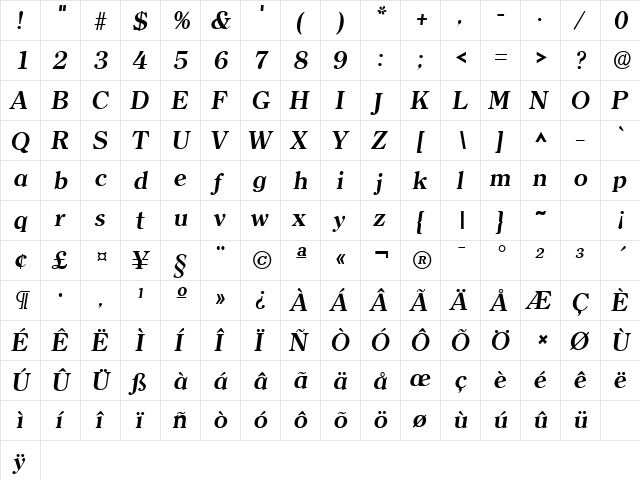
Clarity Serif SF Bold Italic Font Preview
Design Context for Clarity Serif SF Typeface
Clarity Serif SF carries the refined structure of traditional serif typography, with bracketed terminals and considered proportions that communicate credibility and craft. Its italic angle brings a sense of urgency and motion to the letterforms. The heavy weight commands attention and anchors typographic hierarchies.